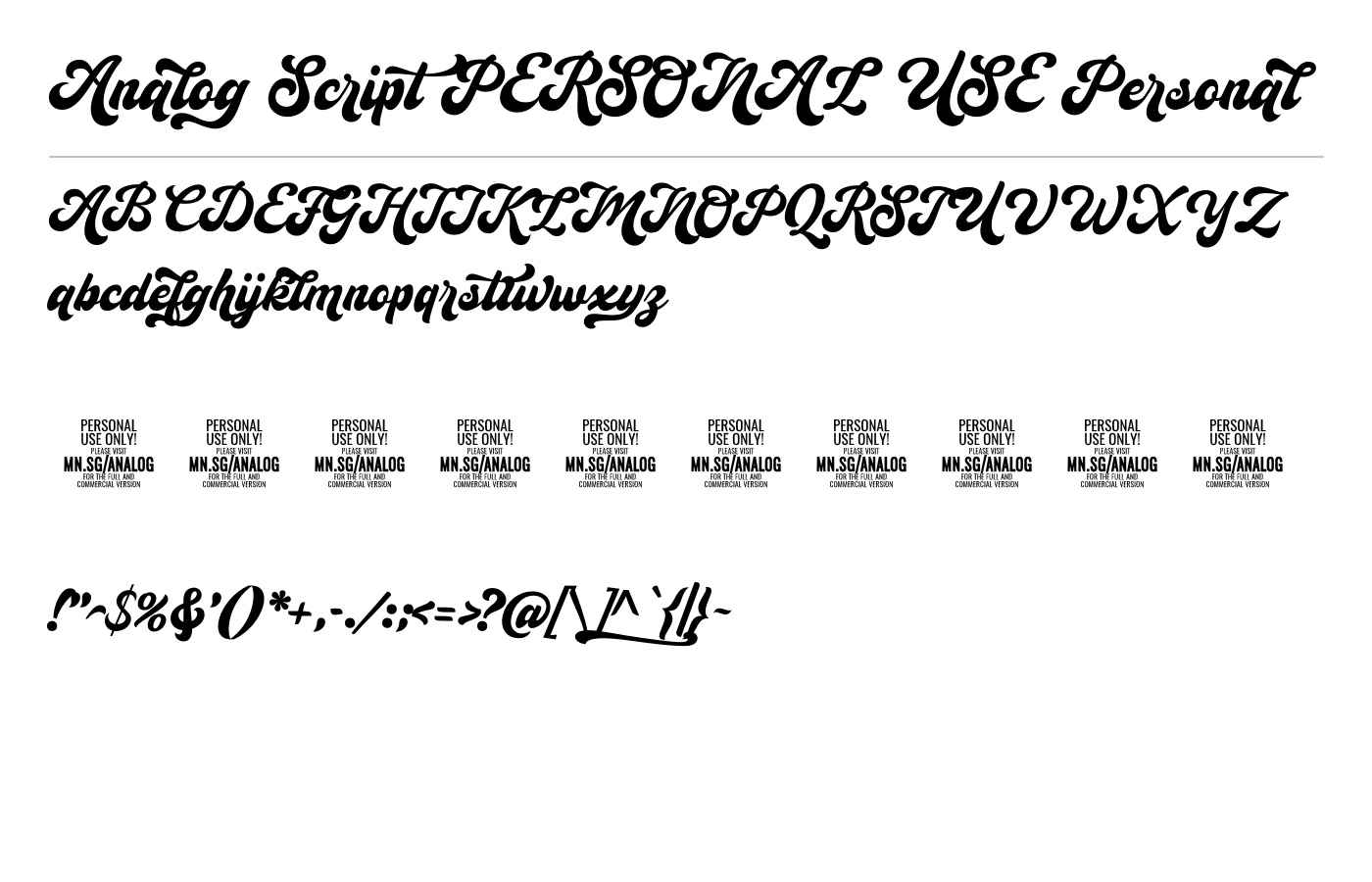
Analog Script PERSONAL USE is a bold and lively script font featuring thick, flowing strokes with elegant, swirling terminals that give it a handcrafted, vintage flair. Its distinct curls and flourishes create a playful yet refined personality, making it ideal for use in logos, invitations, and branding where a charming, nostalgic touch is desired. This font shines in display settings, drawing attention with its dynamic style while maintaining readability.
Analog Script PERSONAL USE Font
About Analog Script PERSONAL USE Font